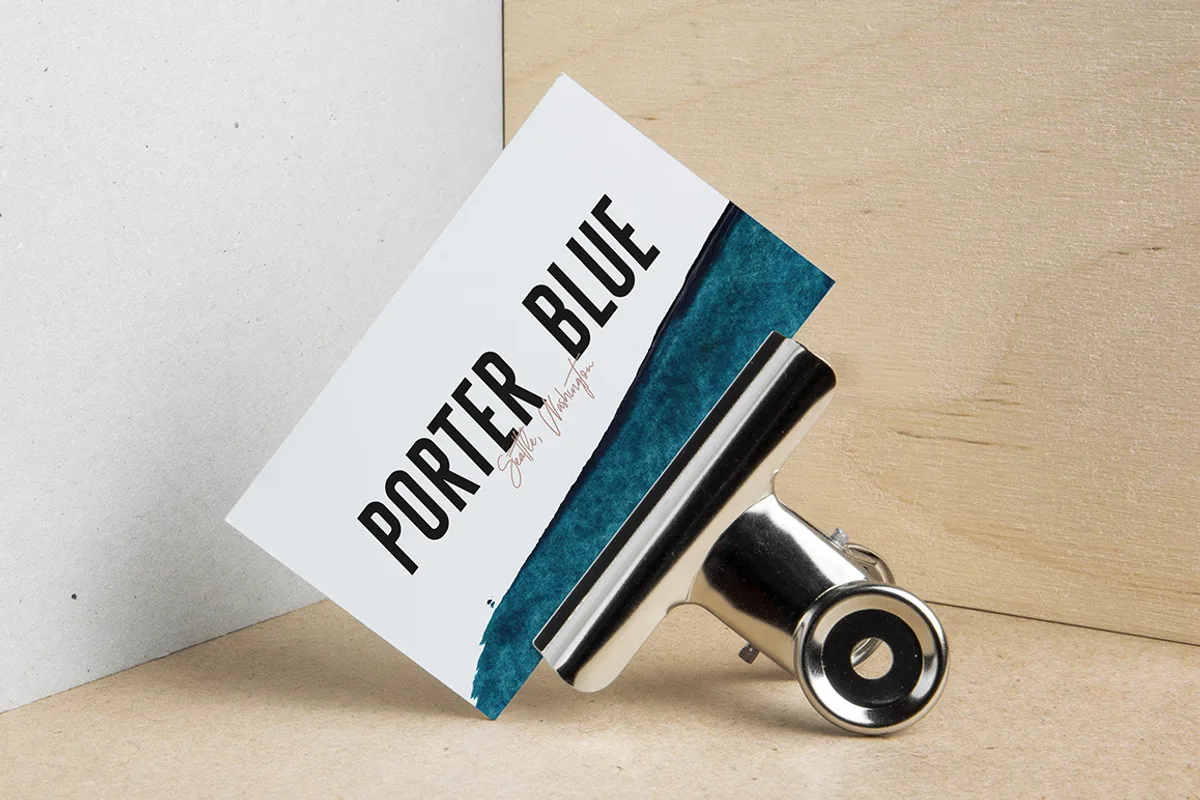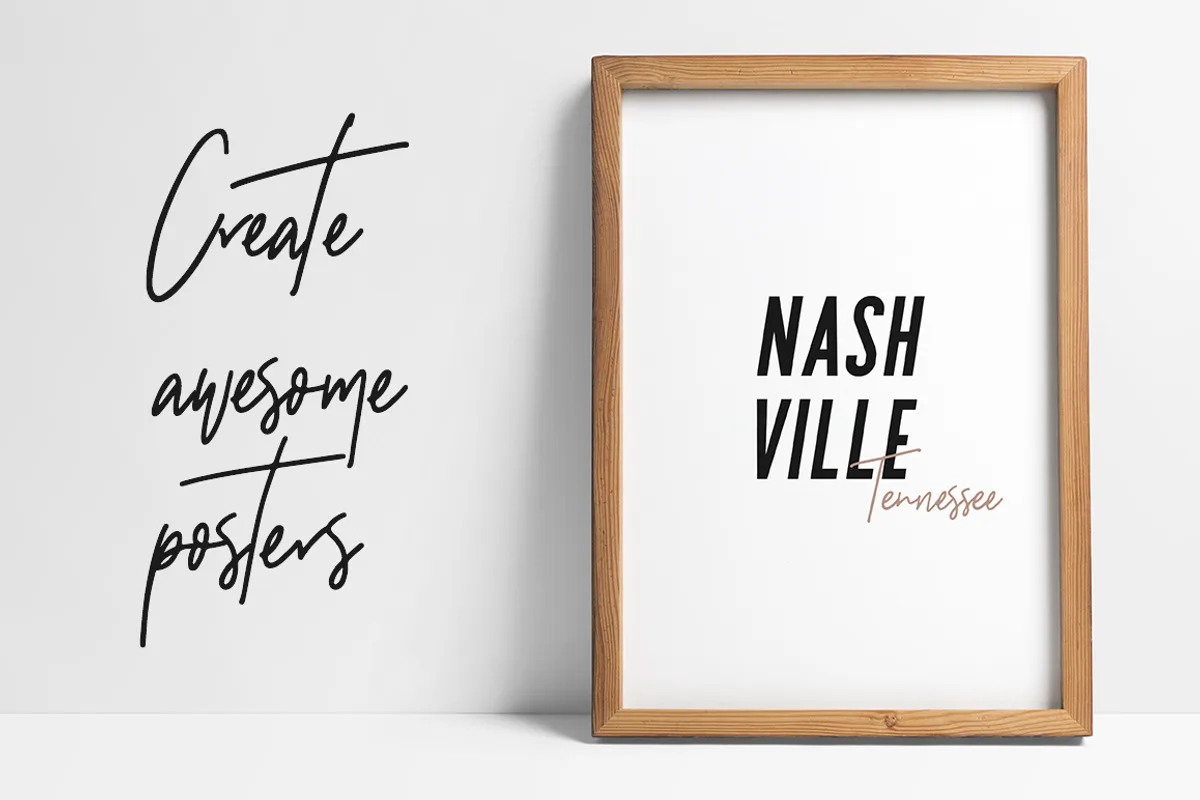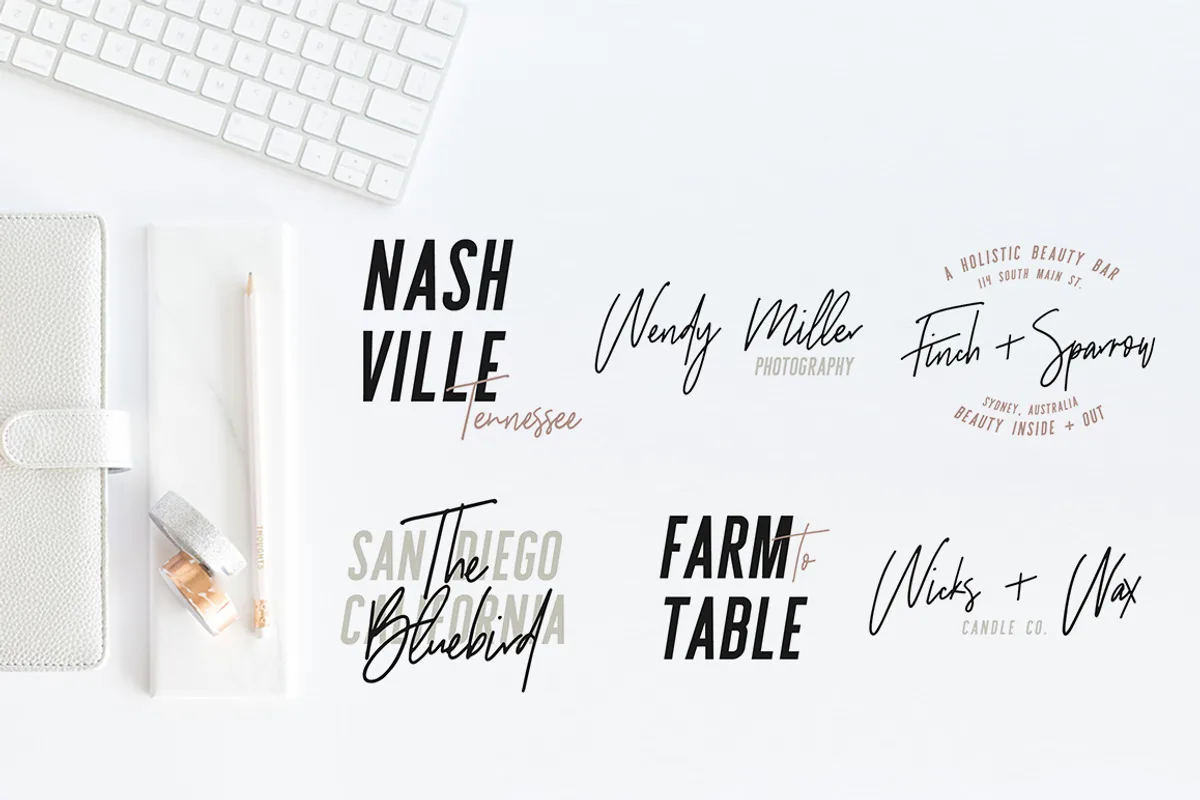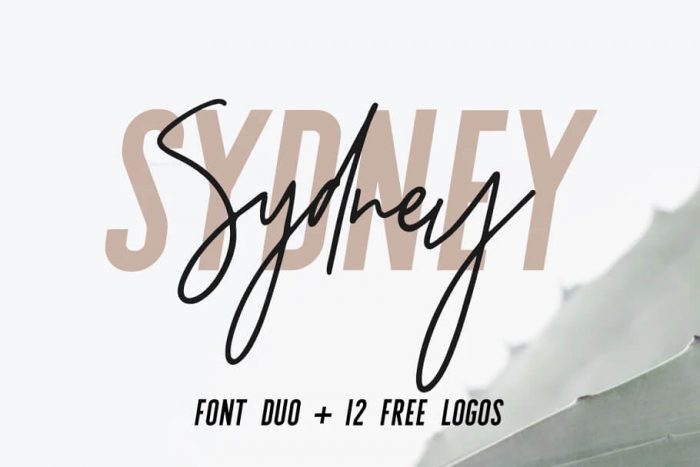
Sydney is a beautiful font duo that combines two trends (sleek sans serif caps and messy whimsical scripts) into one gorgeous package. You’ll be seeing this combination a lot more in the design world over the next year – so here’s a pack to help you be ahead of the curve! It is perfect for branding, web headings, logos, quotes, movie titles and more.